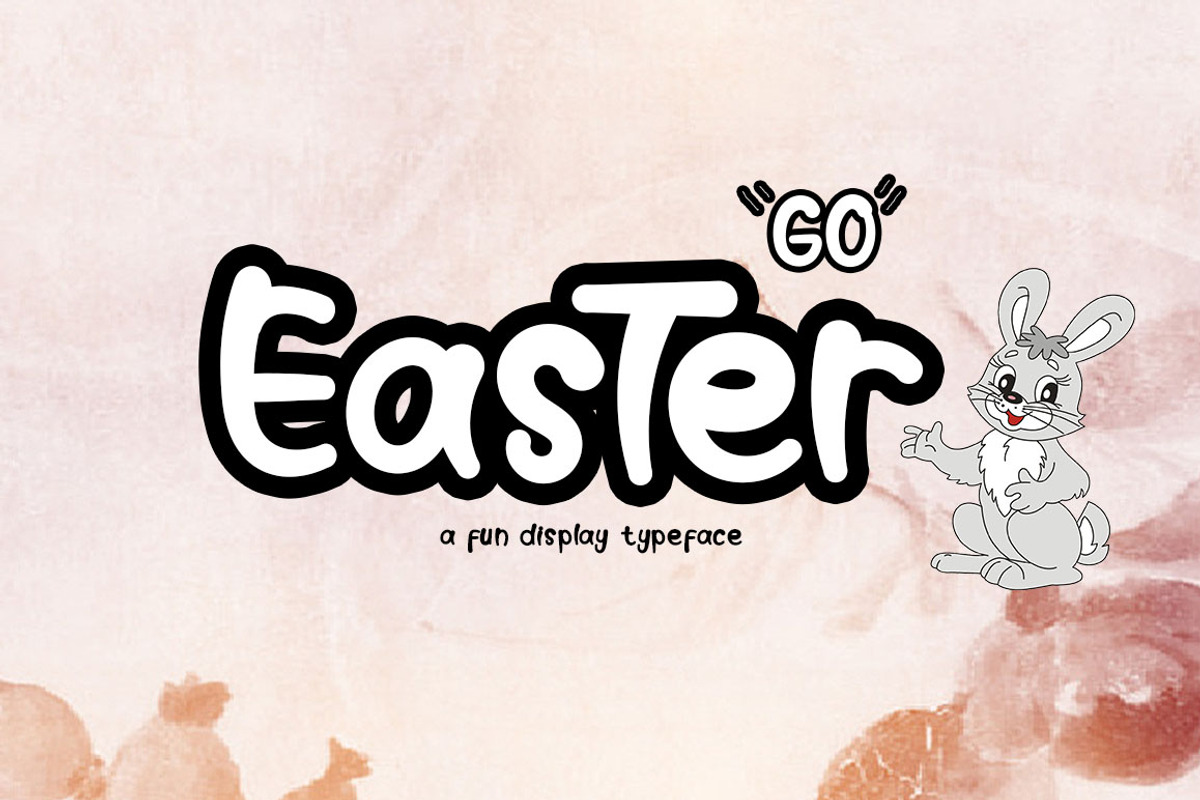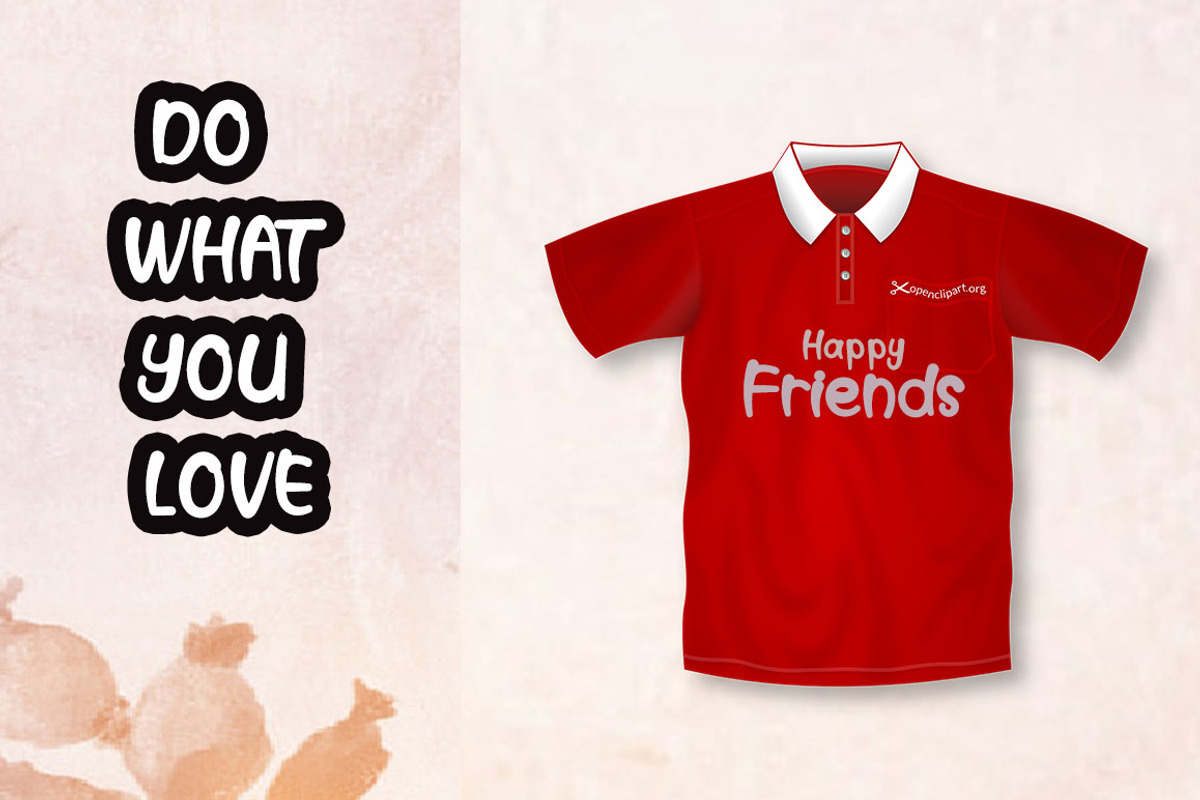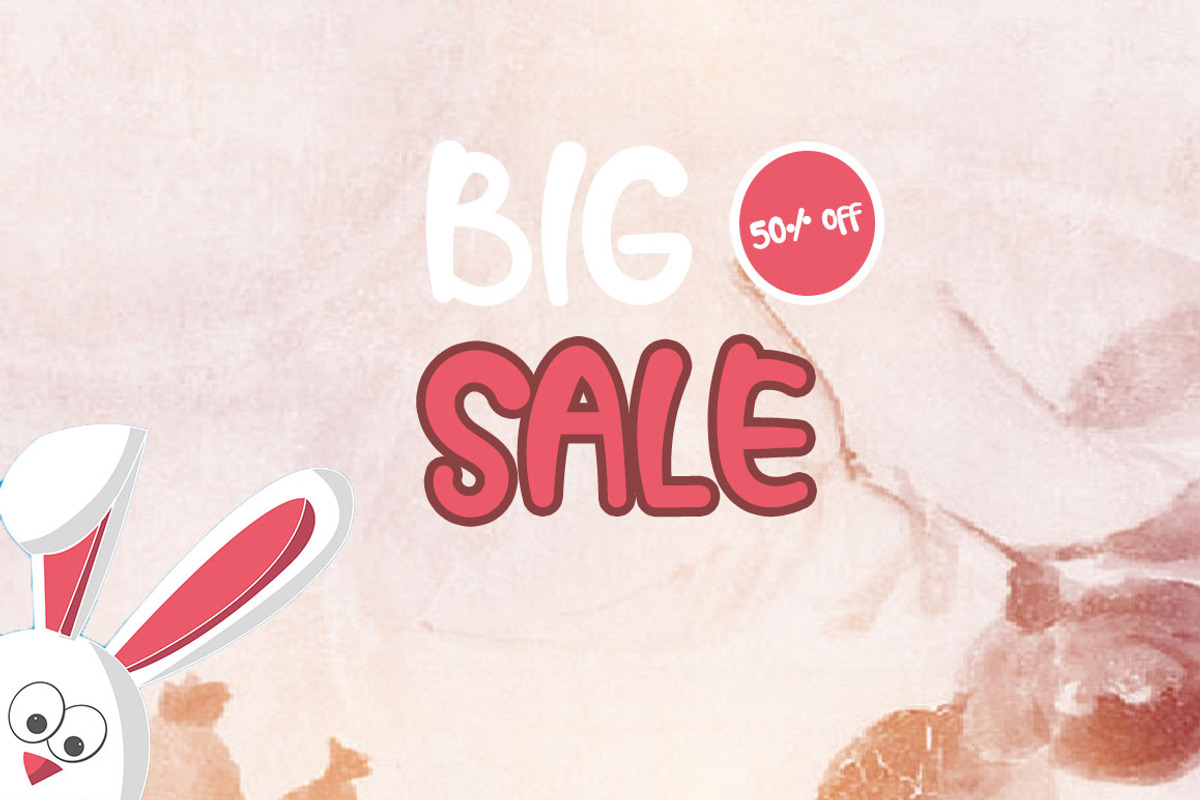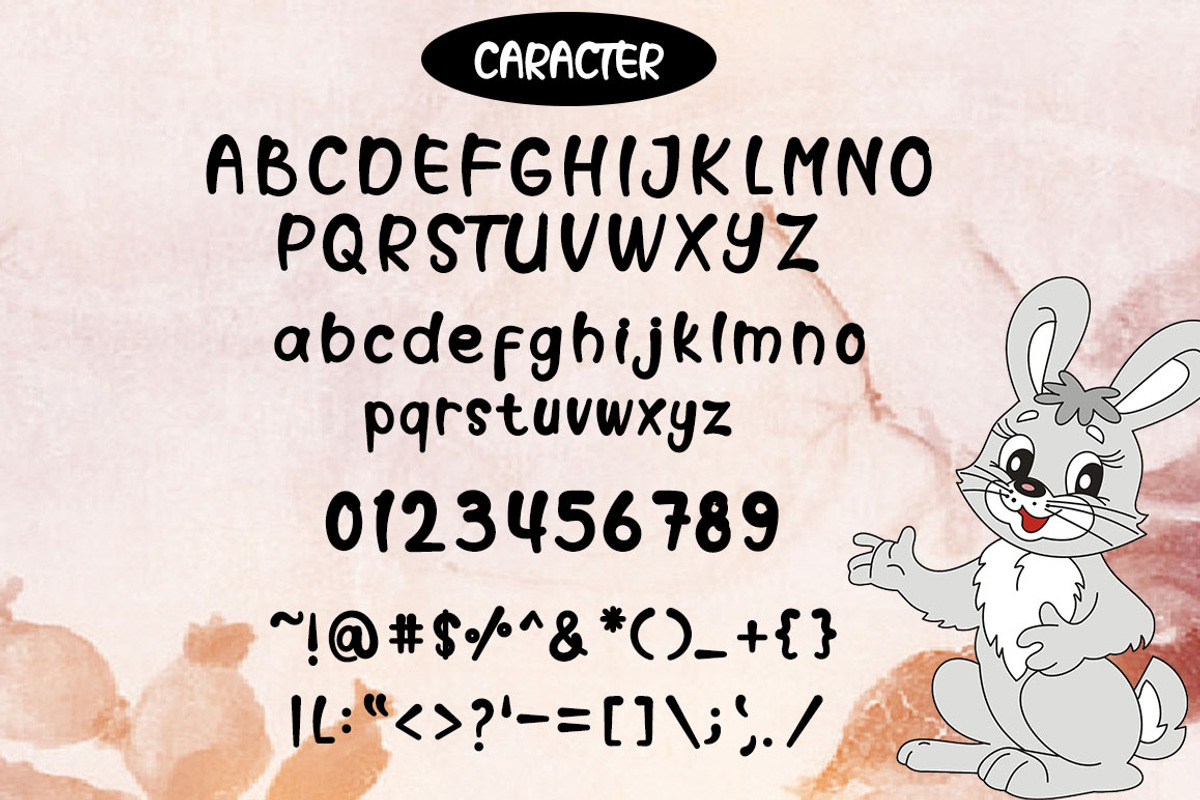
Go Easter | Funny
Go Easter font a modern display typeface with cheerful theme for your fun project. Goo Easter display font suitable for logo, branding, greeting card, poster and any design that you create.